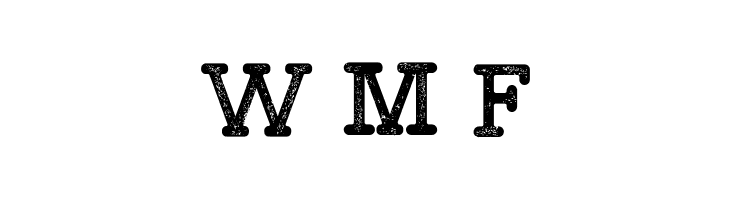
• Typoline
A bold, modern font with thick, block-like letters and high contrast.
• Typoline Demi Shadow
A bold, shadowed font with a strong, three-dimensional appearance.
• Typoline Demi Shadow Italic
A bold, italic font with a shadow effect, perfect for dynamic and eye-catching designs.
• Typoline Expanded
• Typoline Expanded Italic
• Typoline Italic
A bold, italicized font with high contrast and dynamic slant.
• uings
A playful and elegant font with cursive-like strokes and whimsical design.
• Umbridge Con Demo
A bold, dripping font with a playful and eerie style.
• Umbridge Demo
A playful, bold font with rounded, exaggerated curves and a whimsical style.
• Umbridge Pros Demo
A bold, brush-style font with dynamic, playful strokes.
• Unability
A bold, geometric font with a modern, industrial aesthetic.
• Unability
• Underground
A bold, geometric sans-serif font with a modern and clean design.
• Uni! Stay own now!
A bold, angular font with geometric shapes and sharp edges.
• UNICORN+PARADISE
A bold, distressed font with a vintage, textured style.
• UNIVERSALISME
A geometric, modular font with a bold, modern design.
• UNIVERSALISME
A geometric, modular font with a bold, modern aesthetic.
• UNIVERSALISME Bold
A bold, geometric font with a grid-like, futuristic design.
• UNIVERSALISME Bold Italic
A bold, italic, geometric font with a modern, grid-like design.
• UNIVERSALISME Italic
A geometric, grid-based font with a futuristic and abstract style.
• UNIVERSALISME-Inverse
A geometric, grid-like font with a modern and decorative style.
• UNKNOWN